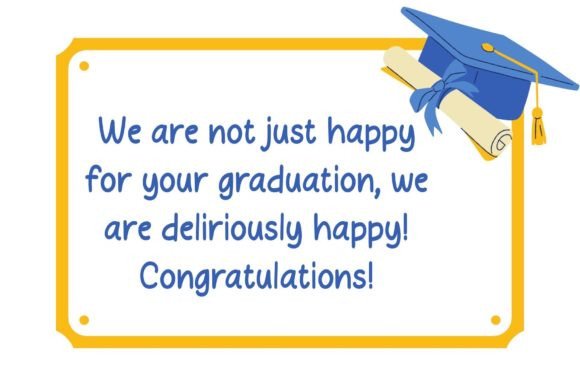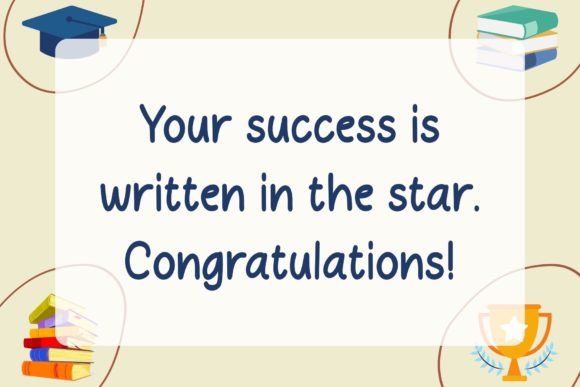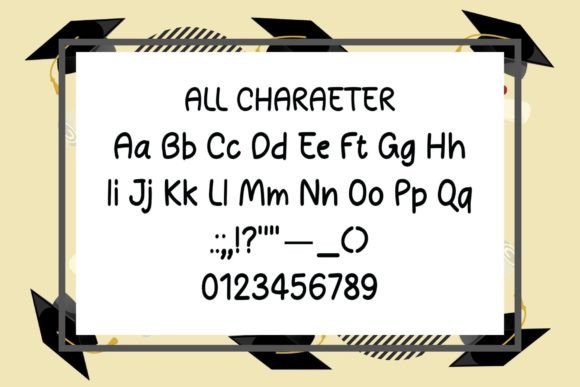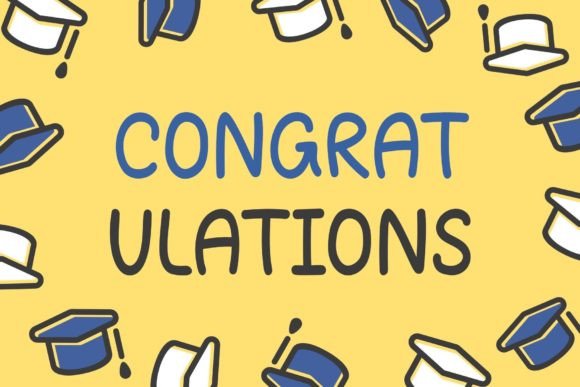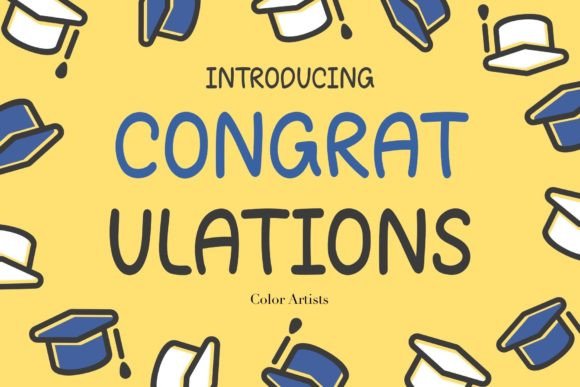
Celebrate in Style with Congratulations Font
Are you looking for the perfect font to express your joy and congratulations on special occasions? Look no further! Introducing “Congratulations Font” – the ideal choice for celebrating milestones and achievements in style. With its elegant and sophisticated design, this font captures the essence of joy and success, making it perfect for a wide range of celebrations.
The Perfect Font for Every Occasion
Whether it’s a graduation, promotion, wedding, or any other special occasion, “Congratulations Font” adds a touch of elegance and charm to your designs. Its beautiful and refined aesthetic makes it suitable for various applications, including:
- Party invitations and announcements
- Congratulations cards and gift tags
- Social media posts and stories
- Custom banners and signs
- Digital and print designs
What Makes Congratulations Font Special?
“Congratulations Font” stands out from other fonts due to its unique and captivating design. Here are some features that make it special:
- Elegant and sophisticated design: The font boasts a refined and luxurious aesthetic that adds a touch of class to your designs.
- Highly legible: The font is designed to be easy to read, making it perfect for both digital and print applications.
- Versatile: “Congratulations Font” can be used for a wide range of celebrations and occasions, from formal to informal events.
Tips for Using Congratulations Font
To get the most out of “Congratulations Font”, here are some tips to keep in mind:
- Pair it with complementary fonts: Combine “Congratulations Font” with other fonts to create a unique and visually appealing design.
- Experiment with colors and textures: Add depth and interest to your designs by experimenting with different colors and textures.
- Use it consistently: Use “Congratulations Font” consistently throughout your design to create a cohesive and professional look.
Why Designers and Crafters Love Congratulations Font
Designers and crafters love “Congratulations Font” for several reasons:
- Time-saving: The font saves time and effort, allowing designers and crafters to focus on other aspects of their projects.
- Professional results: “Congratulations Font” helps designers and crafters achieve professional-looking results, even if they’re not experienced typographers.
- Inspiration: The font inspires creativity and imagination, helping designers and crafters to come up with innovative and unique design ideas.
In conclusion, “Congratulations Font” is the perfect choice for celebrating milestones and achievements in style. With its elegant and sophisticated design, this font captures the essence of joy and success, making it perfect for a wide range of celebrations. Whether you’re a designer or crafter, “Congratulations Font” is a valuable addition to your toolkit, helping you to create beautiful and memorable designs that will leave a lasting impression.